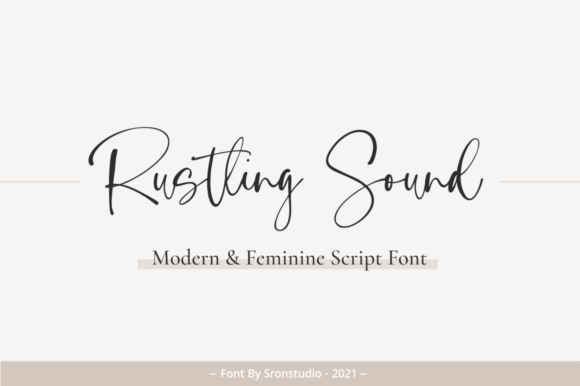
Introducing Rustling Sound Font, a stylish and incredibly elegant handwritten font that is perfect for all your creative design needs. Created by Sronstudio, this font family is a must-have for anyone looking to add a touch of sophistication to their designs.
With Rustling Sound, you can take your design game to the next level. It's versatile and works perfectly on wedding invitations, thank you cards, quotes, greeting cards, logos, business cards, and more. This font is designed to give a handwritten touch to all your designs and make them stand out from the rest.
What's more, Rustling Sound is PUA encoded, which means you can access all of the glyphs and swashes with ease. This feature makes it incredibly easy to use and customize to your liking.
But that's not all. Rustling Sound is more than just a font. It's a work of art. The font is crafted with such precision and attention to detail that it's sure to evoke a range of emotions in anyone who sees it. It's elegant, sophisticated, and has a unique charm that sets it apart from other fonts.